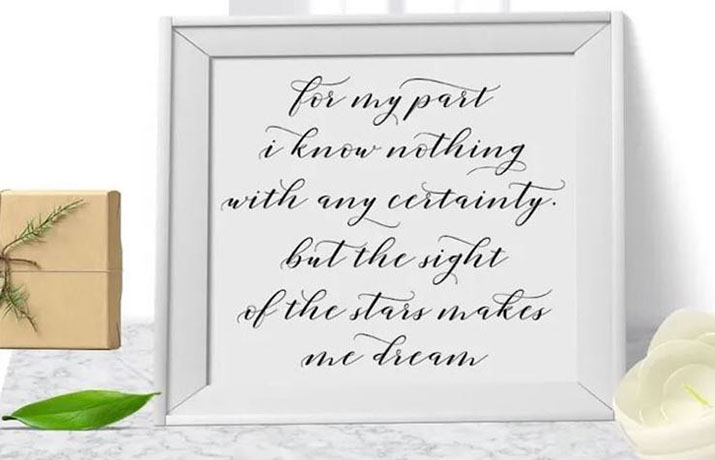
Lucinda Script Font is a lovely, modern calligraphic typeface that features thin strokes and delicate flourishes. It was designed by Ambia and published by Areatype.
All its texture is handmade with thin strokes, delicate flourishes, and a slightly bouncy baseline. This special effect comes just because of the awesome swashes added by the designer into it.
It features dynamic and pretty swashes and can be used for many purposes, such as titles, signatures, logos, wedding invitations, letterhead, signage, labels, newsletters, posters, badges, etc.
Style:Script, Calligraphy, Modern
• Its elegant, contemporary calligraphy style features stunning swashes that work well with a variety of styles, like invitations, branding, birthday cards, wedding cards, shopping bags, signatures, covers, posters, social media posts, product designs, product packaging, cards, brochures, signage, mug printing, Instagram quotes, and so on.
What is Lucinda Script Font?
Lucinda Script Font is a lovely, modern calligraphic typeface that features thin strokes and delicate flourishes. It was designed by Ambia and published by Areatype.